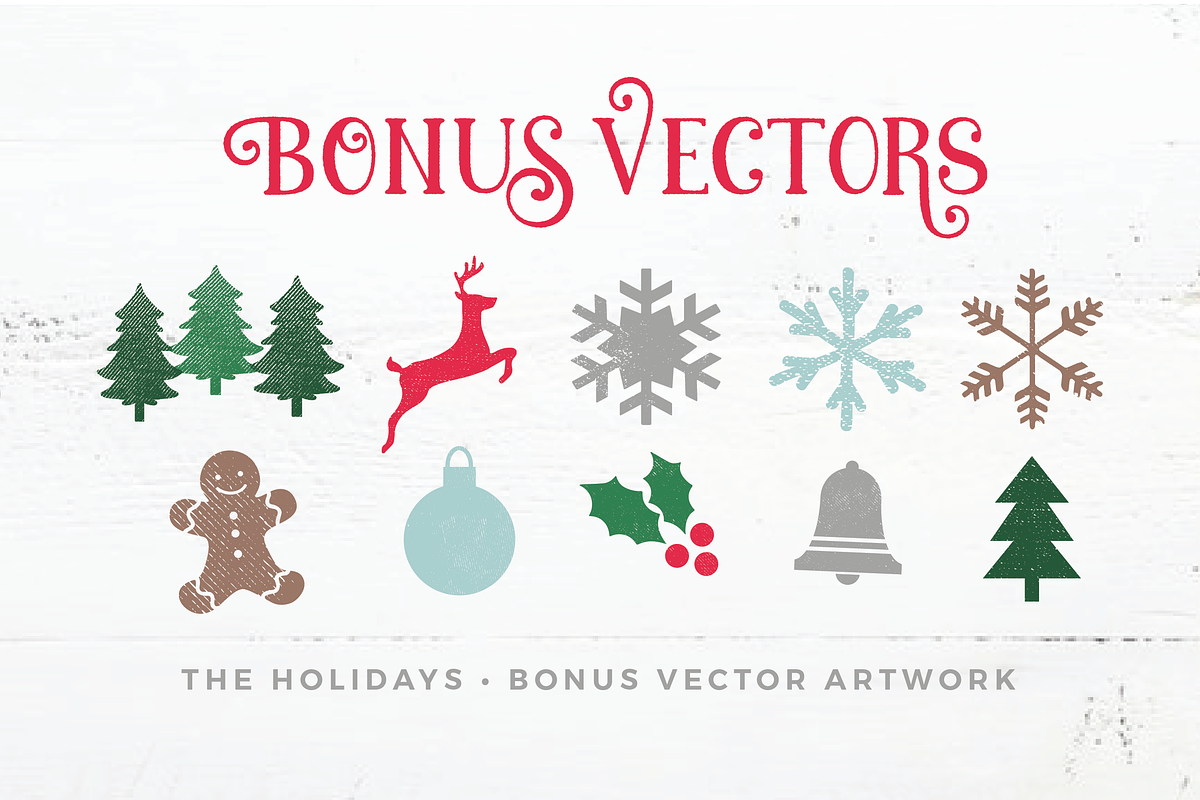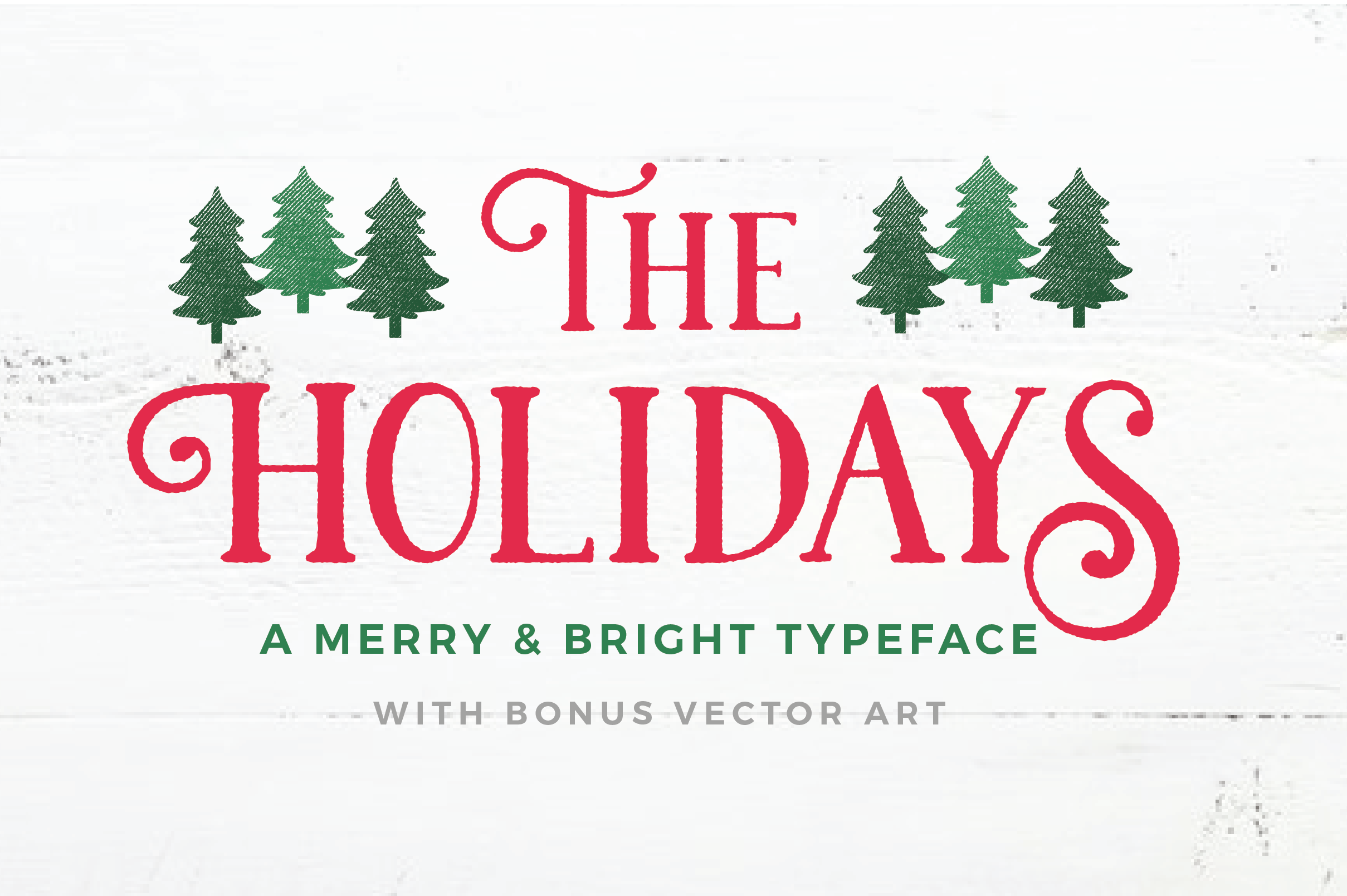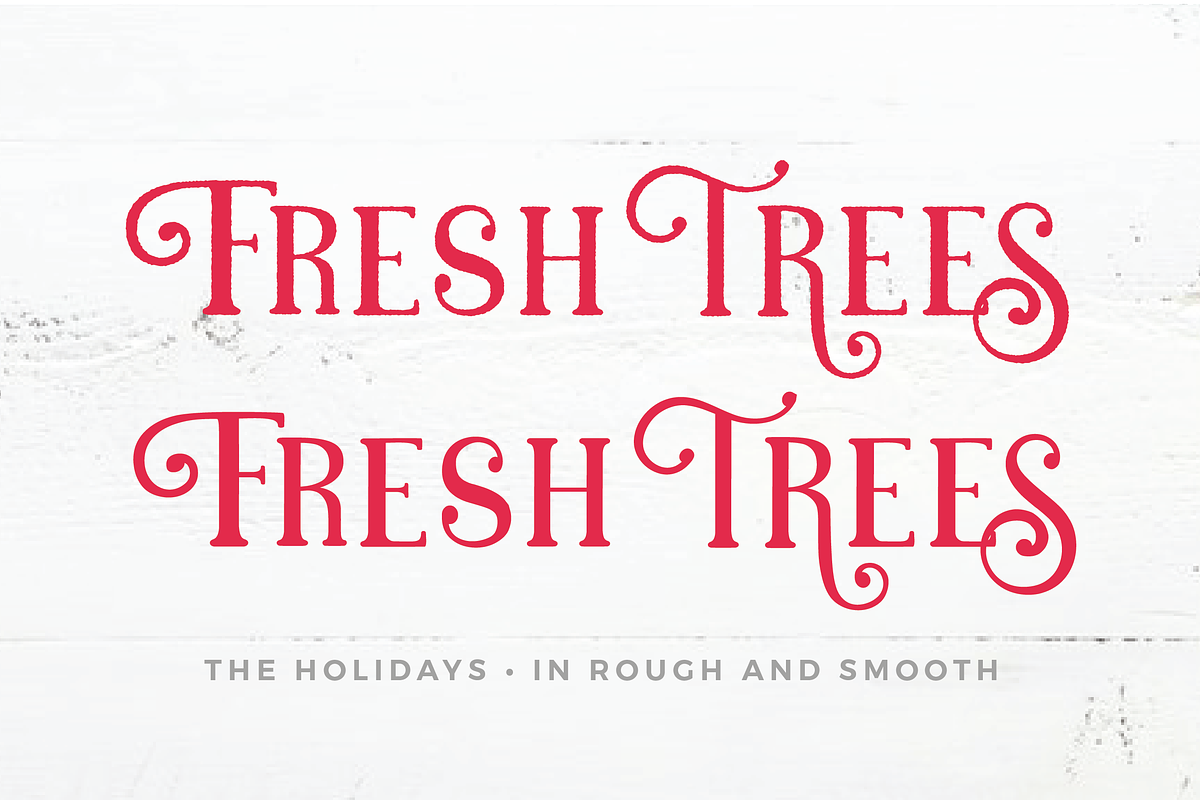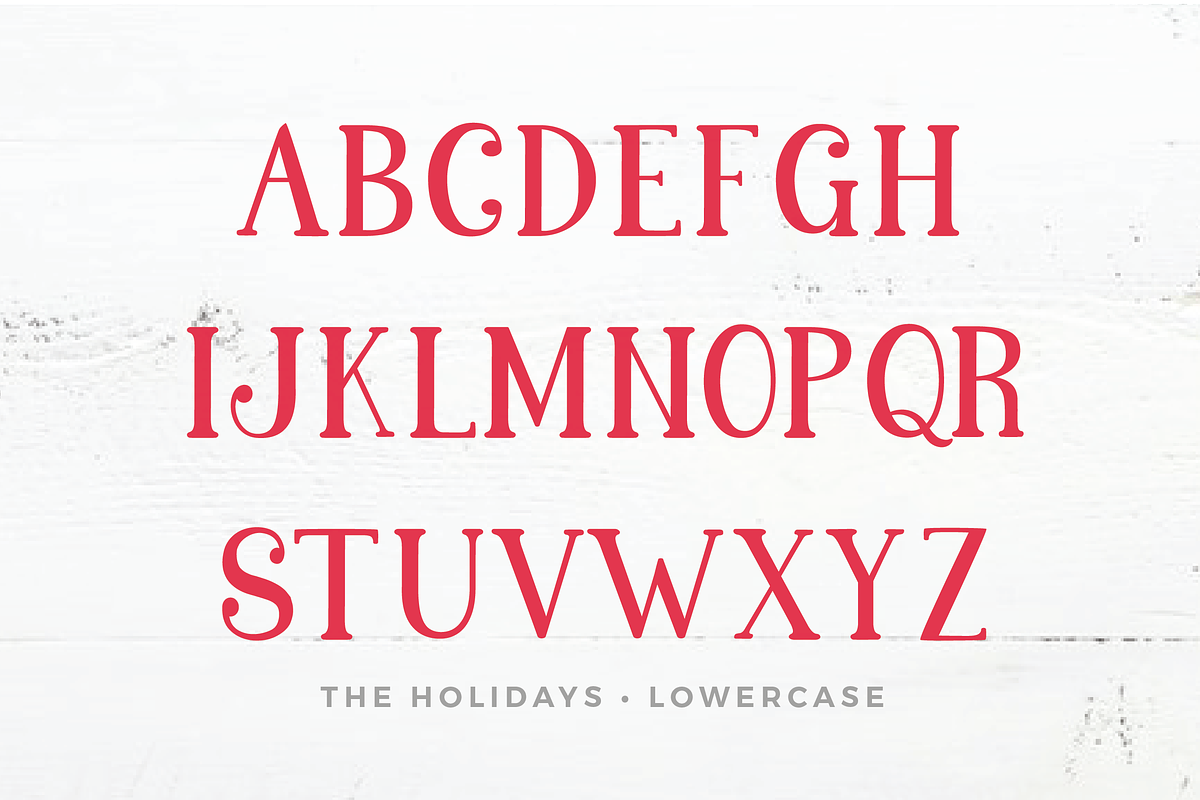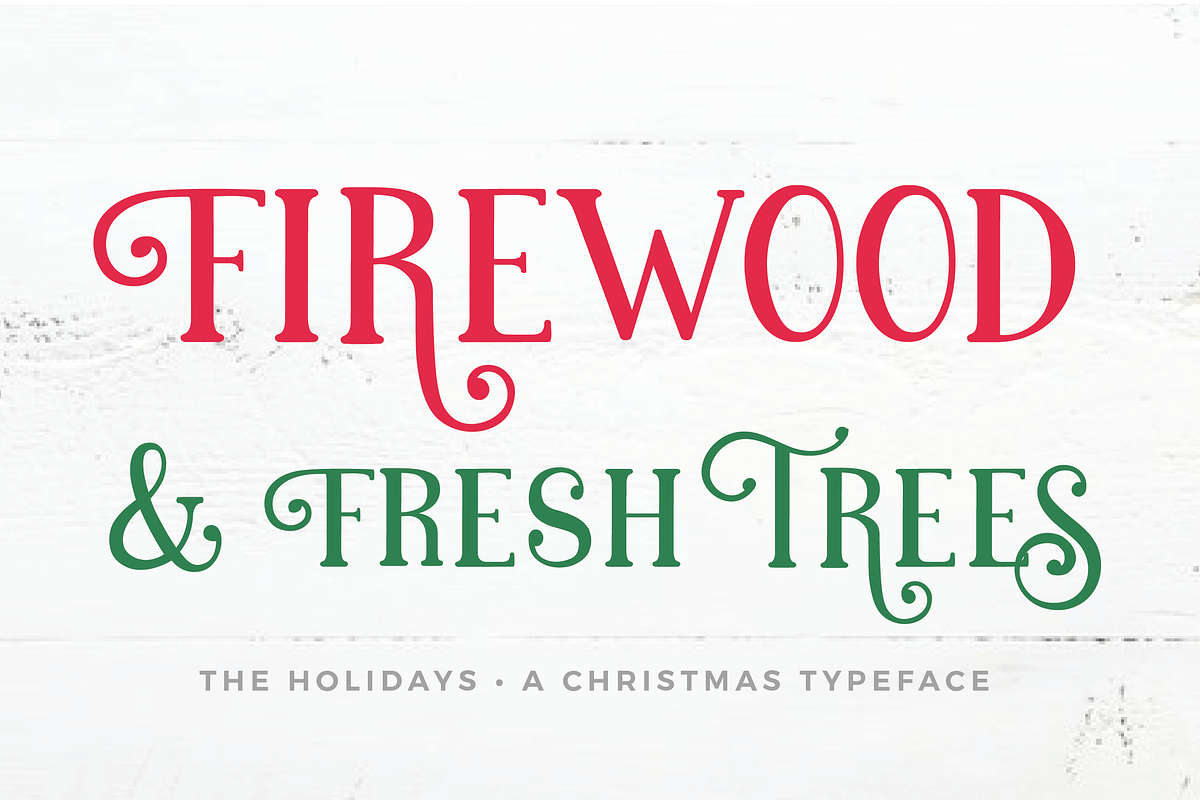
The Holidays - A Christmas Typeface
Get cozy and grab a cup of hot cocoa! The Holidays is a rustic hand-painted Christmas typeface perfect for sleigh rides and caroling.
The Holidays is suitable for Christmas cards, wedding invitations, branding, stationery, blog design, custom art, custom stamps, custom embossers, or any design purpose.